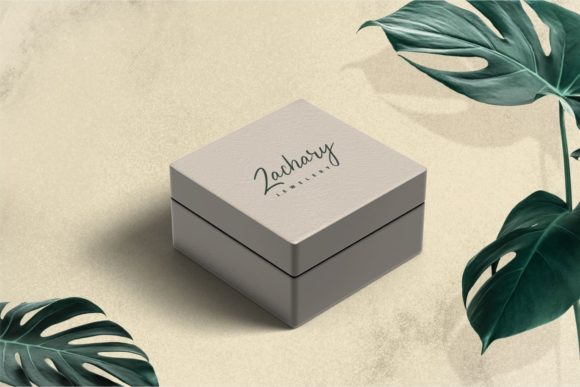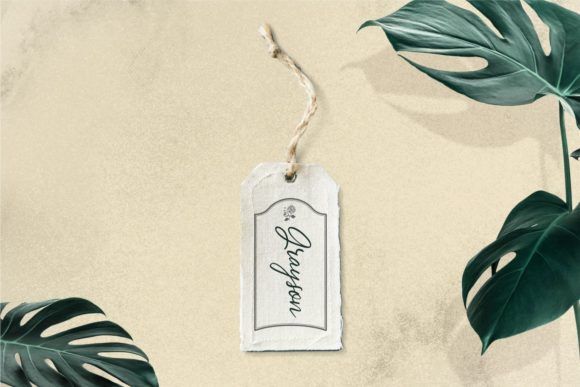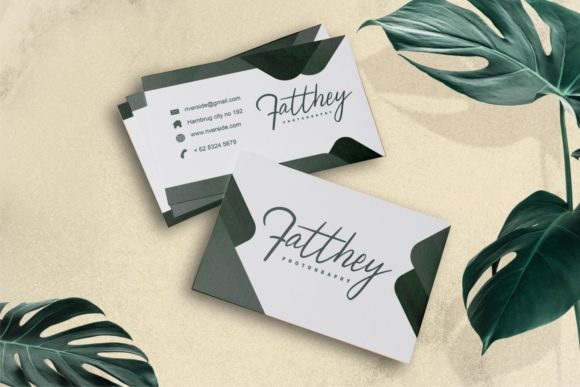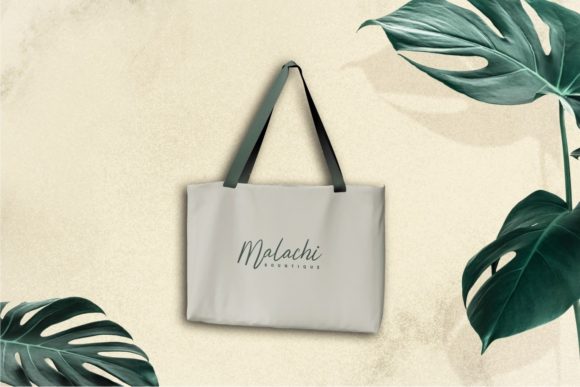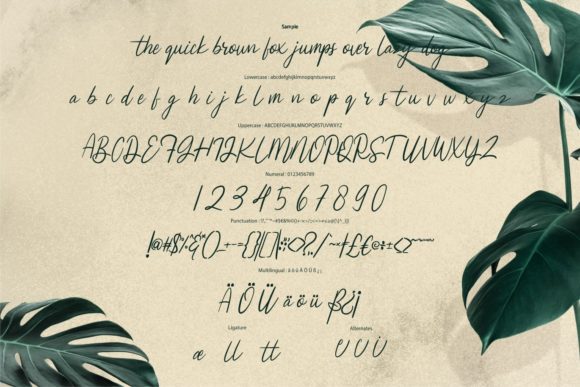
Introduction to Celestie Font
As designers, we’ve all been there – staring at a blank canvas, waiting for inspiration to strike. But what if that blank canvas could be transformed into a masterpiece with the perfect font? For those who crave a touch of elegance and sophistication in their designs, the Celestie Font is a game-changer. This lovely and delicate script font is specifically crafted to bring a refreshing and beautiful look to any creative project.
Imagine having a high-quality design resource that can elevate your designs to new heights. The Celestie Font is perfect for designers who need a versatile and stylish font to complement their work. Whether you’re working on a free download project or a commercial design, this font is sure to impress. With its transparent background and beautiful lettering, the Celestie Font is a valuable addition to any designer’s toolkit.
Key Features of Celestie Font
- High-quality design: Celestie Font offers a beautiful, elegant, and sophisticated design perfect for creative projects.
- Transparent background: This font features a transparent background, making it ideal for use on various backgrounds and design elements.
- Perfect for digital design: Celestie Font is an excellent choice for digital design projects, including website design, social media graphics, and more.
- Unique characteristics: This font features a unique blend of elegance and sophistication, making it stand out from other fonts in its class.
Honest Review: Celestie Font
I recently had the chance to work with the Celestie Font, and I must say it’s been a game-changer for my creative project. The high quality and unique design make it a fantastic addition to any design resource.
What works well: ✨ The Celestie Font has a transparent background, which is perfect for designing with layering in mind. The font is also free to download, making it an excellent choice for personal or commercial projects. I’ve used it for a variety of designs, from logos to typography-based art, and it always looks stunning.
What doesn’t work well: ⚠️ While the Celestie Font is versatile, it may not be the best choice for projects that require a lot of bold or heavy text. The font’s delicate design can get lost in dense typography, so it’s best used in moderation.
Overall, I’m really impressed with the Celestie Font. It’s a high-quality design resource that’s perfect for creative projects. With its unique design and free download, it’s definitely worth checking out.
- Perfect for layering and design experimentation
- Unique and high-quality design
- May not be suitable for bold or heavy text
– Use Celestie Font as a custom font in your design projects, perfect for creating unique and creative graphics.
– Add a touch of elegance to your presentations and documents with the Celestie Font.
Getting the Most Out of Celestie Font
To get the most out of Celestie Font, use it with a transparent background to create a clean and modern design aesthetic. Experiment with different font sizes and styles to add visual interest to your project.
Celestie Font is perfect for:
- Business cards and branding materials
- Blog and website headers